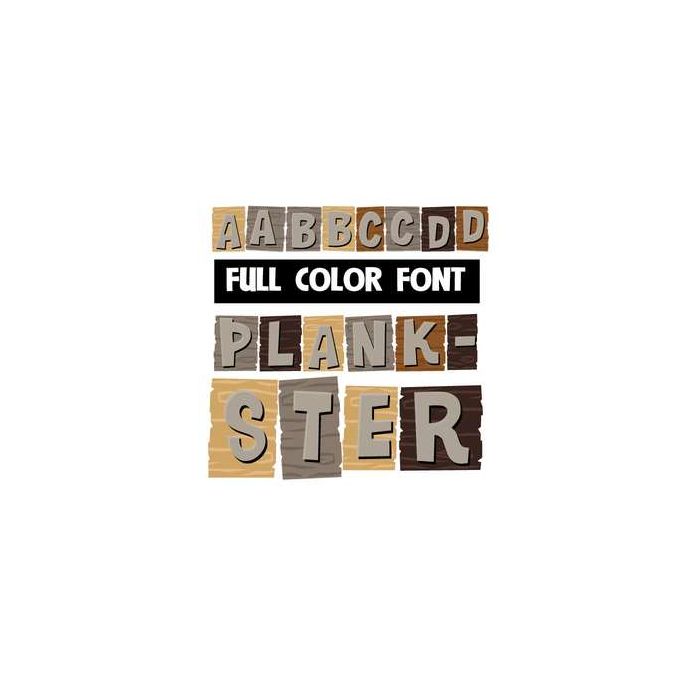
This full-color font features letters on wooden planks. This font works best for titles, displays, posters and more. Please note color fonts will show as black in non compatible programs. This font type is compatible with Silhouette Studio.